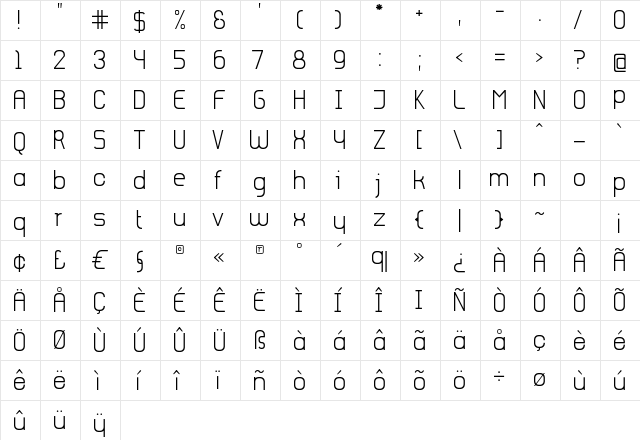
Eiko-Light Regular
Design Context for Eiko-Light Typeface
Eiko-Light is a composed and adaptable typeface that performs quietly and consistently across a wide range of design contexts. The delicate stroke weight brings airiness and refinement to layouts.
Pro Tip: Pair Eiko-Light with a font of contrasting weight or personality to build a more expressive typographic hierarchy.